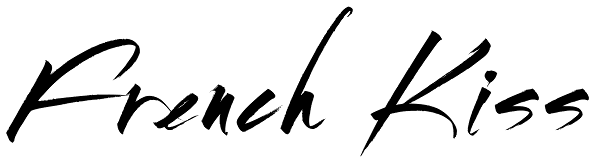
French Kiss
French Kiss is an expressive brush font that was drawn by hand on paper to ensure that it captured an intimate and personal quality. The texture of the brush has been left in, and can be seen when displayed at large sizes. French Kiss contains 28...